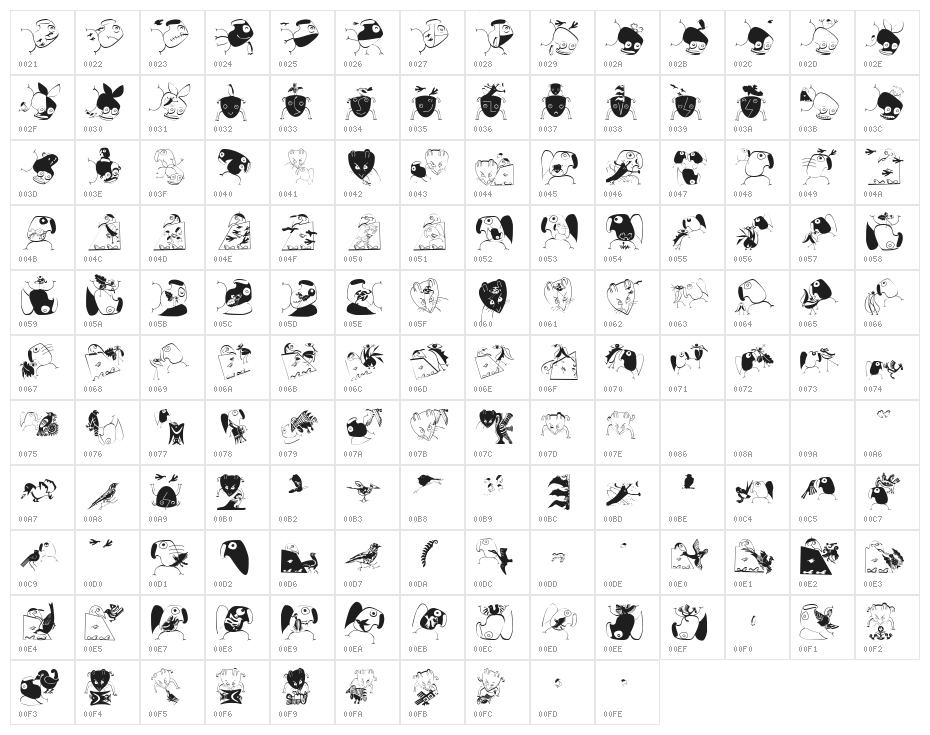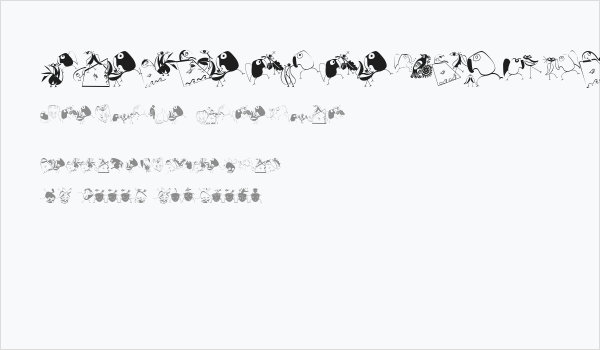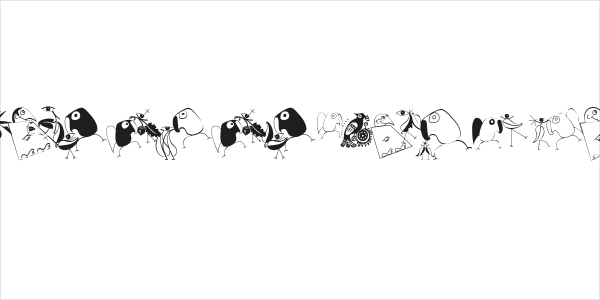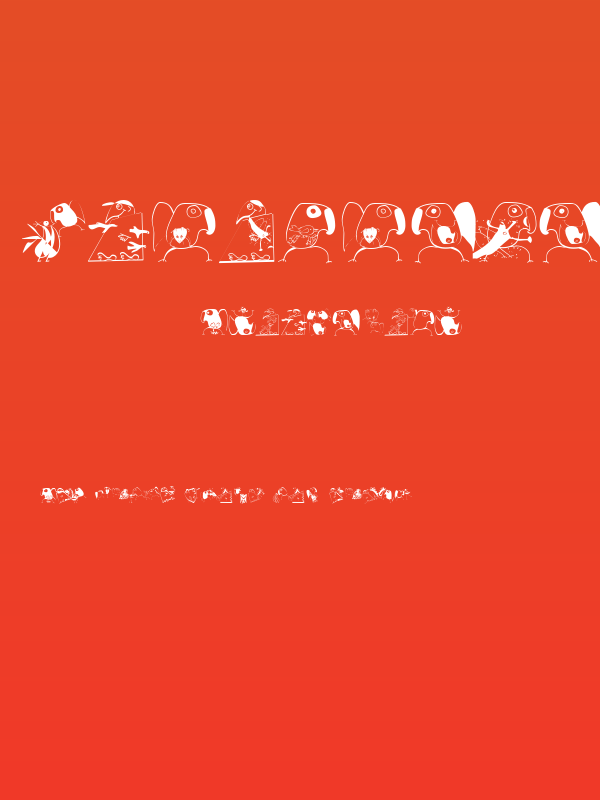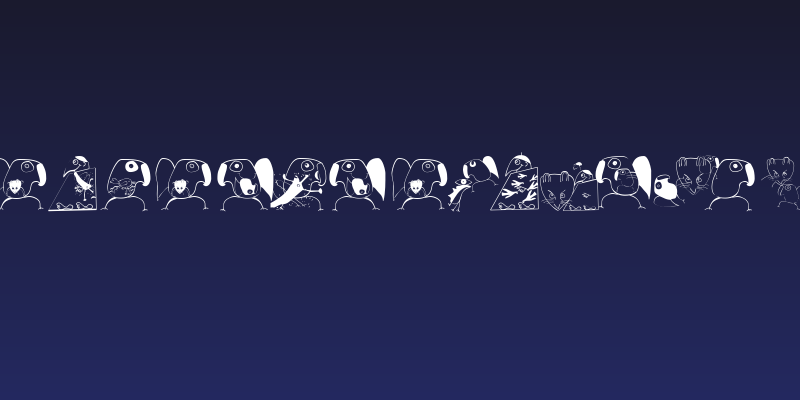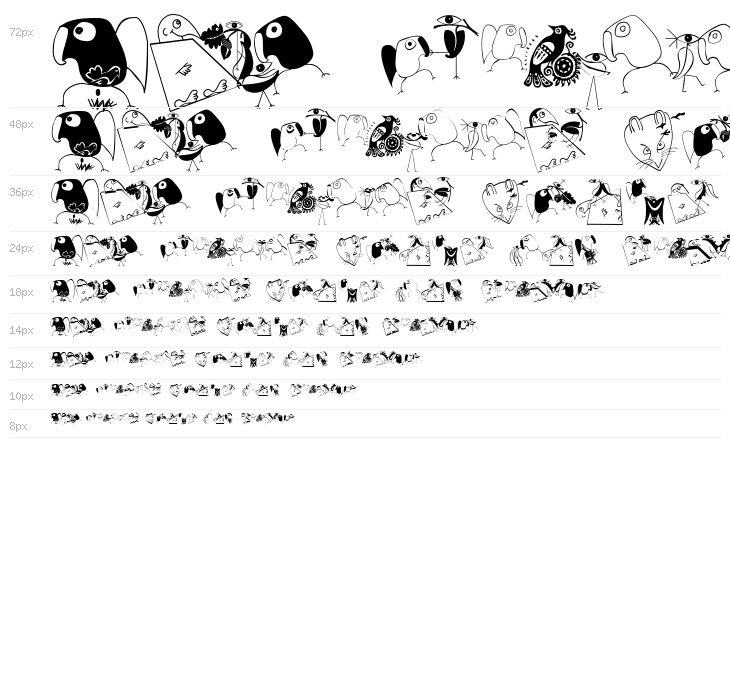
Voelkerfreundschaft Font
Voelkerfreundschaft Description
This unique and whimsical font features a series of playful and imaginative characters, each designed with intricate details and creative elements. The characters are composed of various shapes and figures, resembling abstract art or cartoon-like illustrations. Each letter and symbol is distinct, with some incorporating elements like animals, plants, and abstract shapes, giving the font a lively and artistic feel. The overall design is highly decorative, making it suitable for projects that require a touch of creativity and fun. The font's artistic nature makes it stand out, offering a unique visual experience.
| Use Case | Logos, Posters, Art Projects |
| Proposed Projects | Ideal for children's books, creative posters, art projects, and playful branding. |